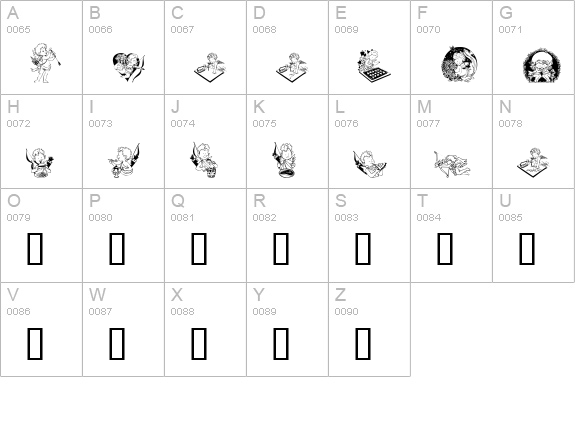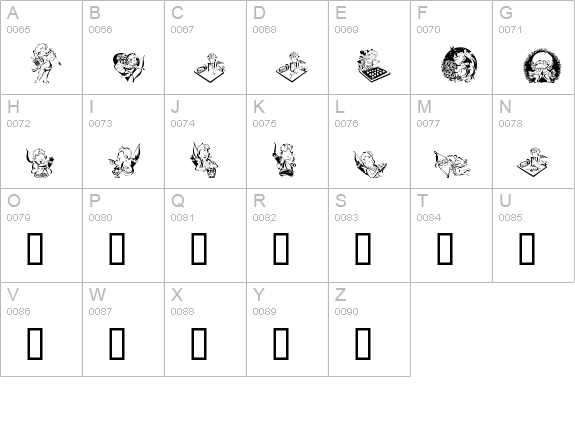
Introducing LCR Cutesy Cupid Font - a whimsical and adorable typeface that will add a touch of charm and playfulness to any design project. This font is perfect for those seeking to evoke a sense of sweetness and enchantment in their creations. LCR Cutesy Cupid Font features a delightful combination of curvy lines and cute little hearts, giving it a truly lovable and romantic appeal. Each letter is carefully crafted with attention to detail, creating a harmonious and eye-catching design. Whether you are working on a Valentine's Day card, a wedding invitation, or simply want to add a touch of love to your personal projects, LCR Cutesy Cupid Font is the ideal choice. Its versatility allows it to be used in a wide range of designs, from logos and branding to social media posts and greeting cards. Best of all, LCR Cutesy Cupid Font is available for free! You can easily download this delightful font at FontsMarket.com, where you will find a vast collection of high-quality fonts for all your design needs. Don't miss the opportunity to add this lovely and charming typeface to your font library. So, why wait? Spread the love and grab your free copy of LCR Cutesy Cupid Font today at FontsMarket.com!